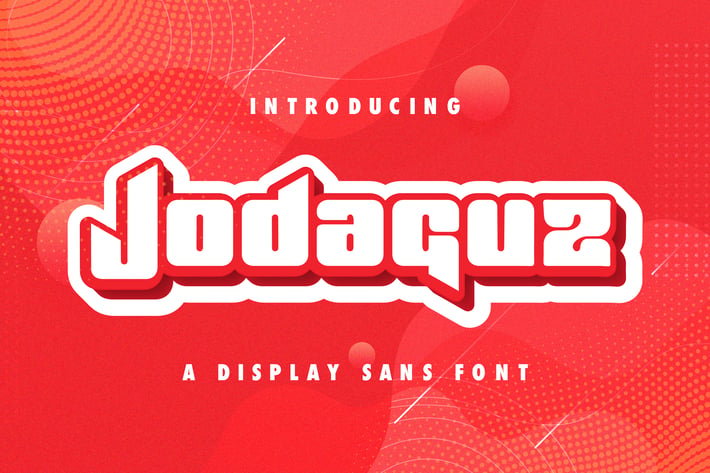
Jodaguz - Display Sans Font
Introducing Jodaguz - Display Sans Font
Jodaguz is a modern display sans font with a bold feel. It will add a contemporary update to any design project. On top of everything, it has a techno feel to it, making it ideal for titles, subtitles and UI.